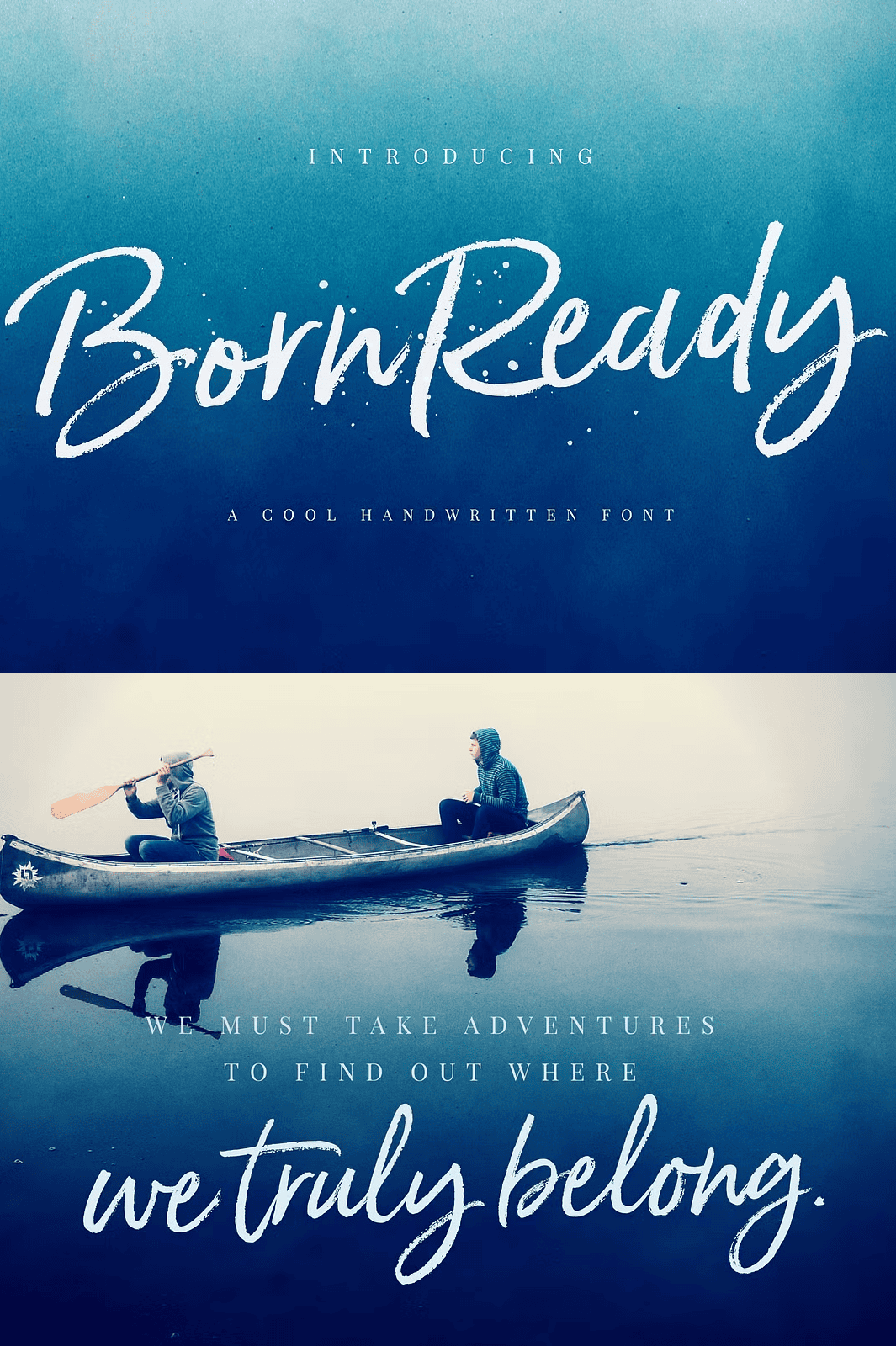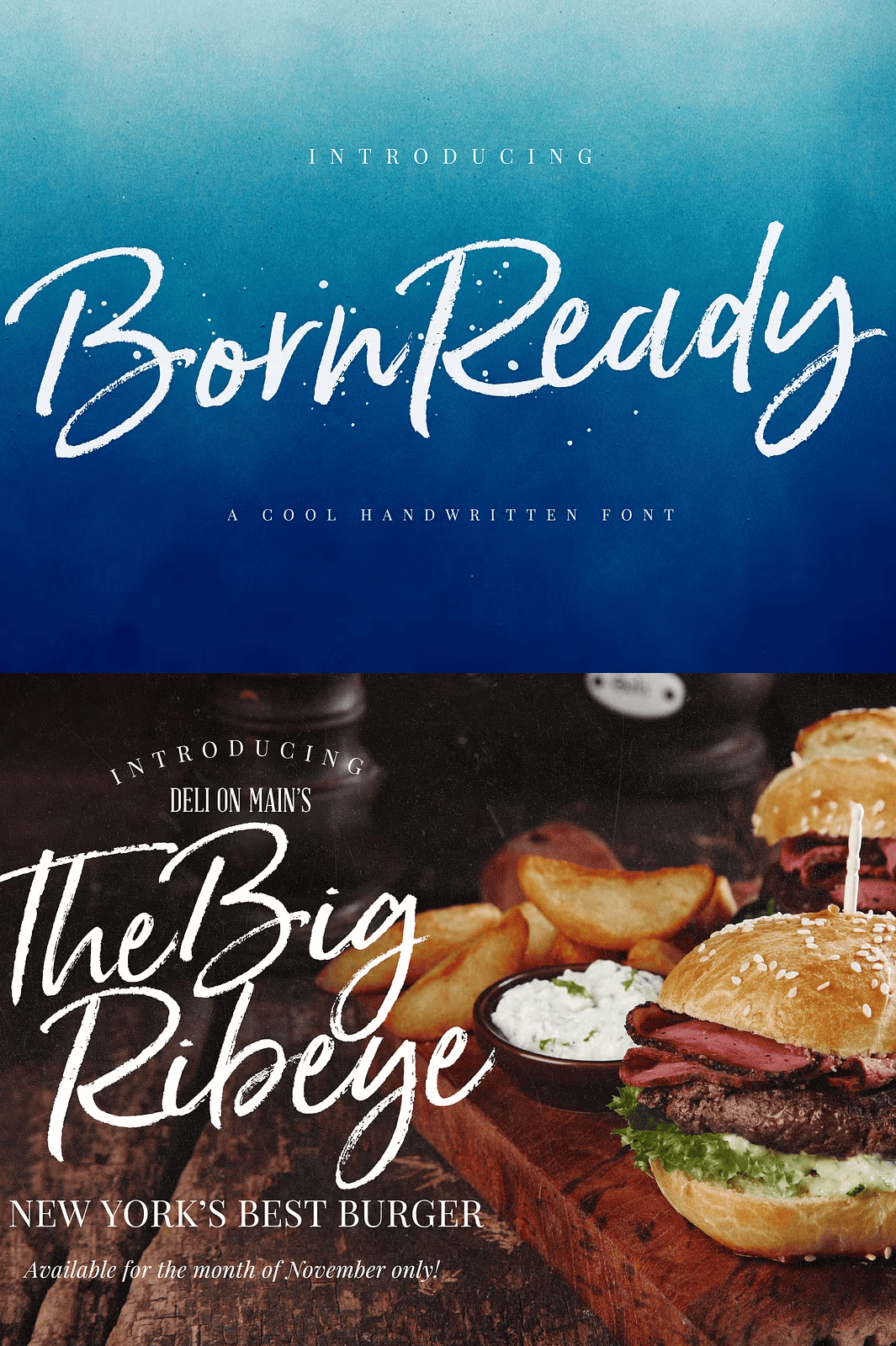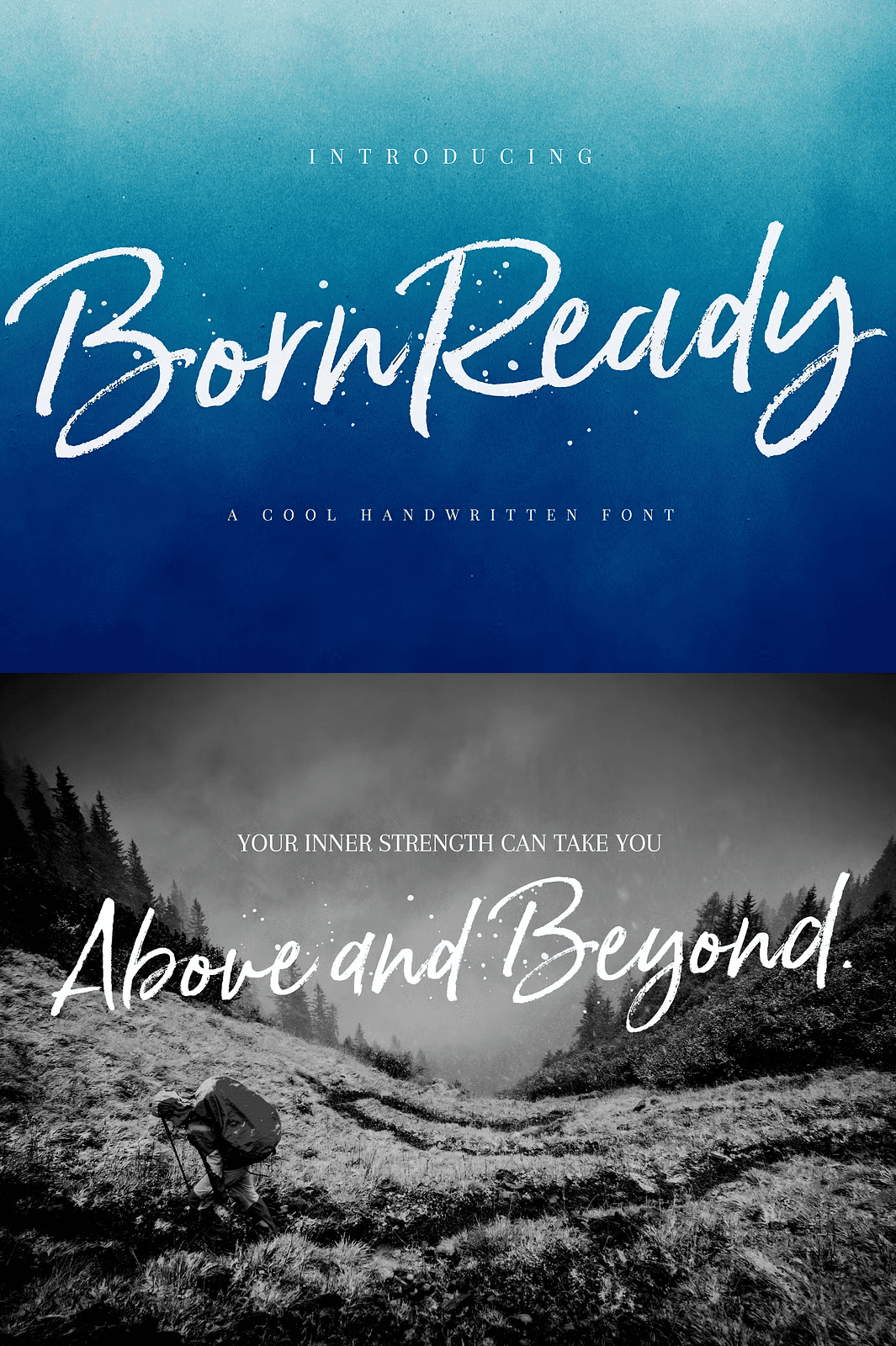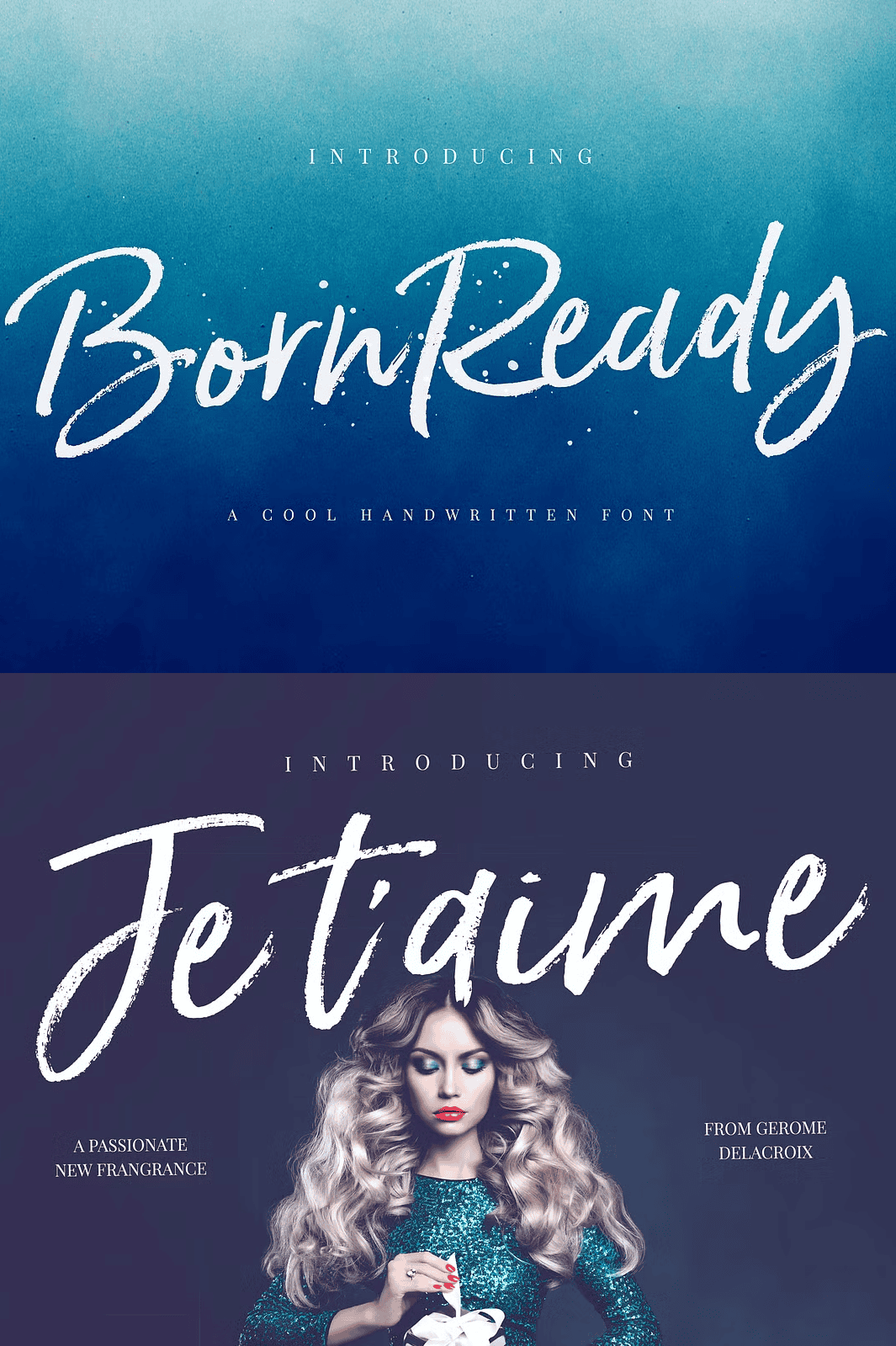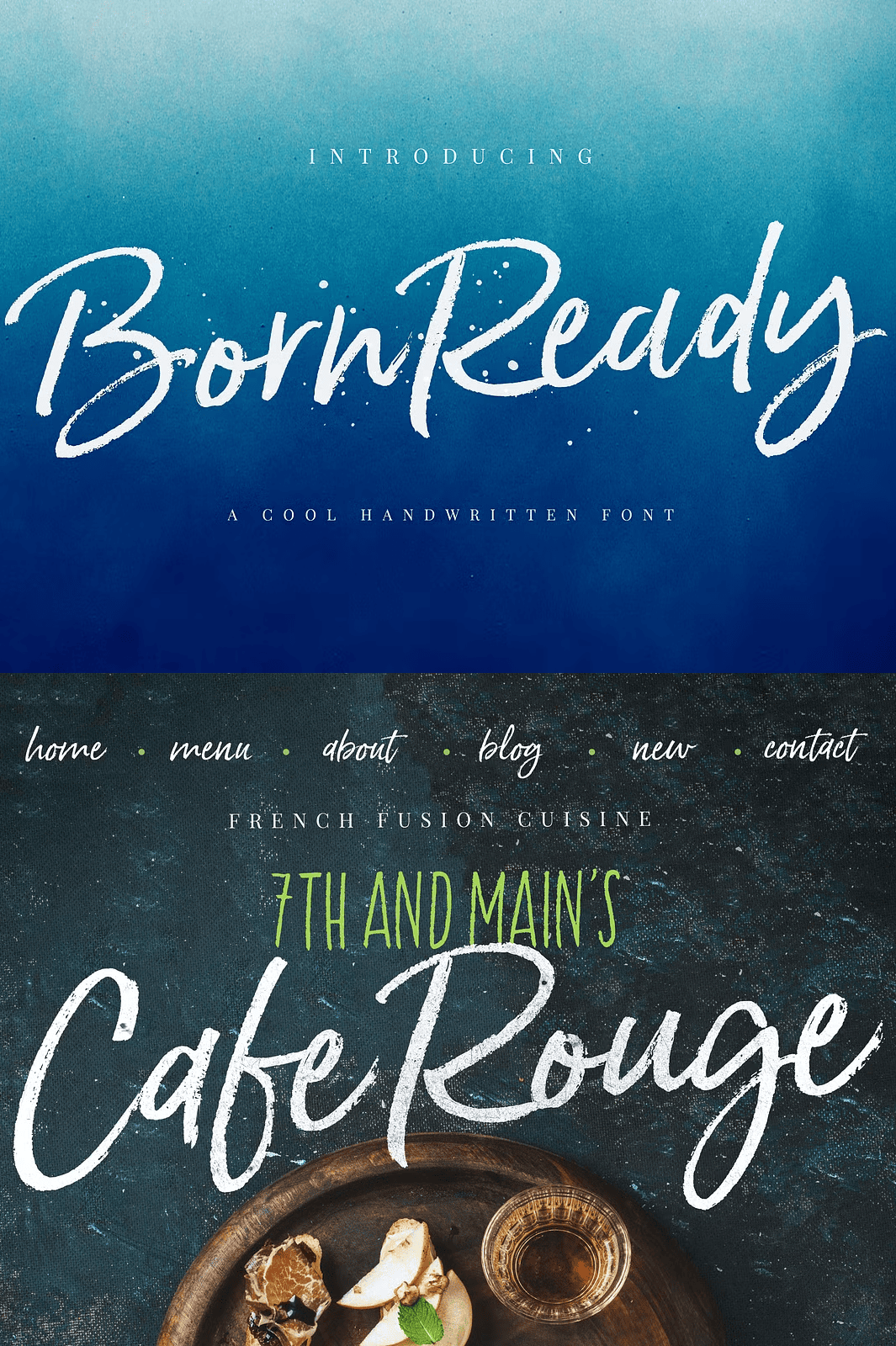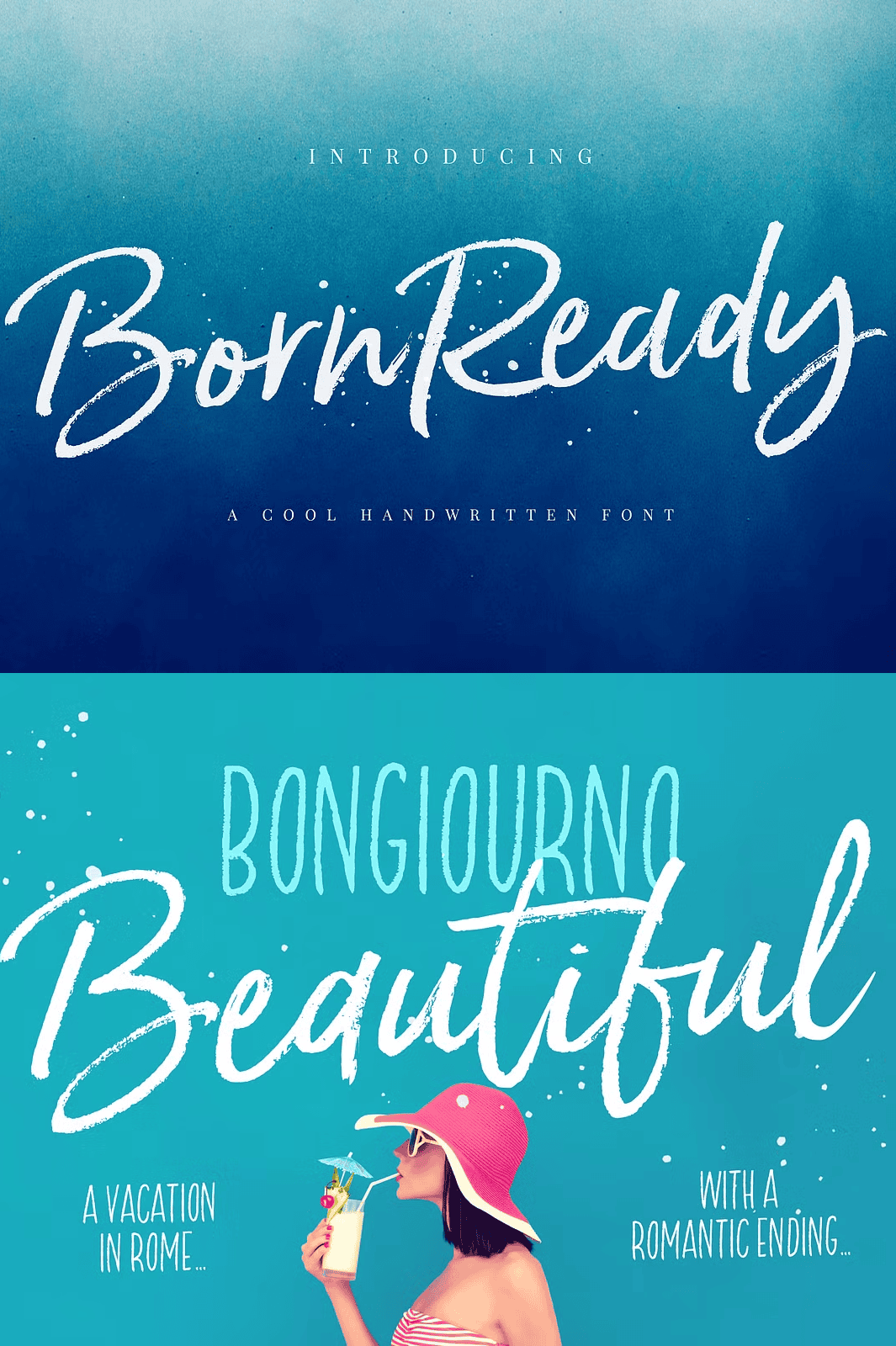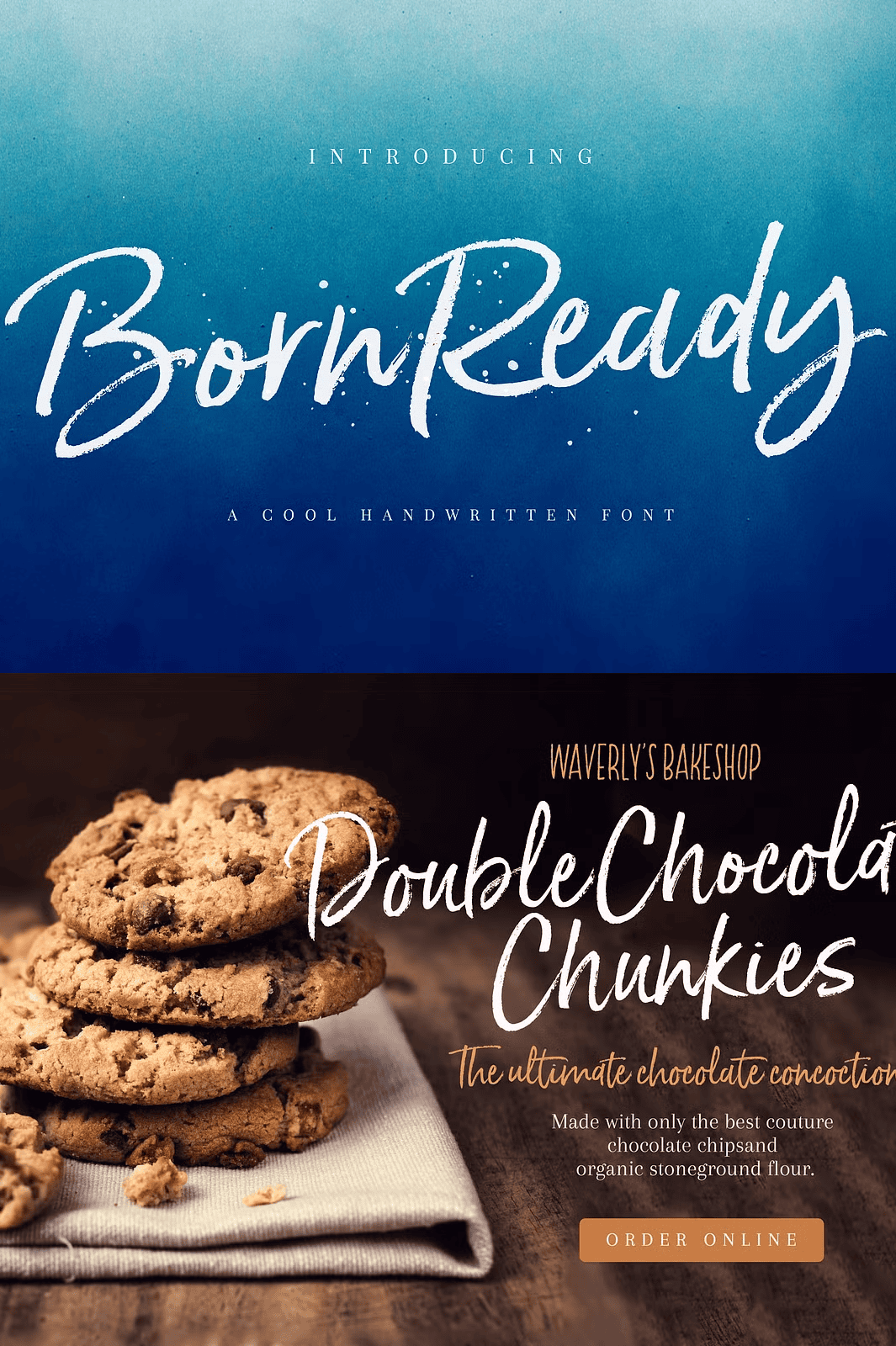
Born Ready Marker Font
Unleash Bold Expression with a Font That Lives Up to Its Name
Step into the spotlight with **Born Ready**, a high-impact, dry marker-style handwritten font engineered for designers who demand personality, precision, and raw authenticity. Crafted with textured lines and expressive strokes, Born Ready doesn’t just spell words it tells stories. With three distinct variations — Regular, Slanted, and Upright this versatile font adapts to any vision, offering a unique personality for every project.
Whether you’re building a bold brand identity, designing eye-catching packaging, or creating social media content that stops the scroll, Born Ready delivers instant visual impact. Its hand-drawn feel is rich with character, while remaining fully legible and professionally polished the perfect balance for modern creative work.
Dynamic Styling with Multiple Personalities and Alternate Characters
Born Ready isn’t a one-size-fits-all font it’s a full creative toolkit.
Three signature styles — Each variation offers a different vibe: Regular for balanced presence, Slanted for dramatic flair, and Upright for clean, confident structure.
Extensive alternate lowercase letters — Swap out standard letters for stylish alternatives to elevate your typography and break visual repetition.
Professional-Grade Tools for Creative Professionals
Born Ready is built for performance. Every glyph is carefully designed to maintain clarity and consistency, even at small sizes or high contrast. The font family supports a full range of languages, including:
– Cornish, Danish, Dutch, English, Estonian, Faroese
– Filipino, Finnish, French, Galician, German, Icelandic
– Indonesian, Irish, Italian, Norwegian Bokmål, Norwegian Nynorsk
– Portuguese, Romansh, Spanish, Swahili, Swedish, Swiss German
Multilingual support ensures global usability without compromise. Whether you’re designing for a multinational brand or a local project, Born Ready adapts with ease.